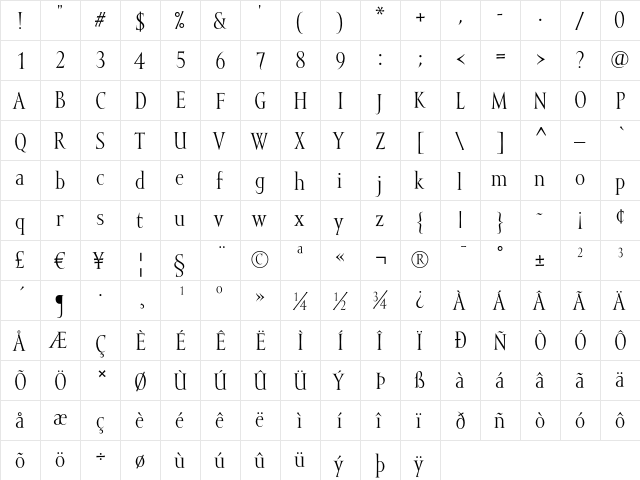
Mramor Regular
Regular · Frantisek Storm, www.stormtype.com  ·
Design Context for Mramor Typeface
Mramor offers clean, dependable letterforms without strong stylistic allegiance, making it a practical choice for designers who need flexibility.
Pro Tip: Pair Mramor with a font of contrasting weight or personality to build a more expressive typographic hierarchy.